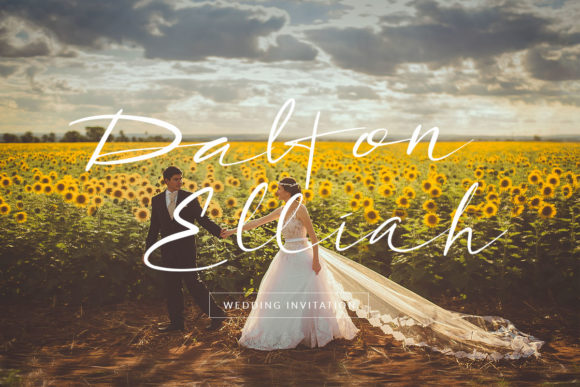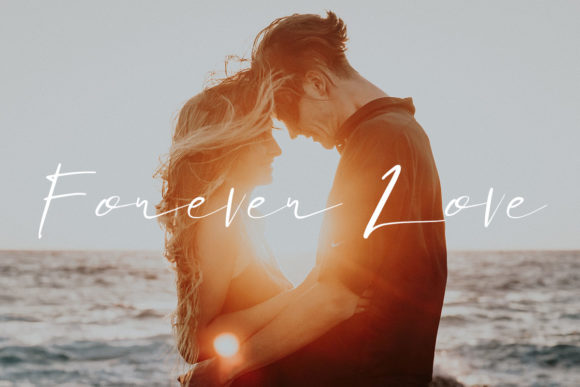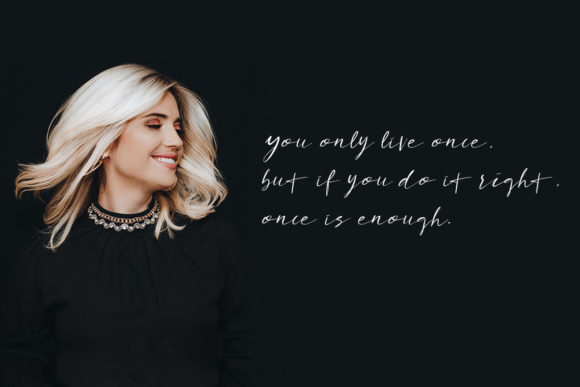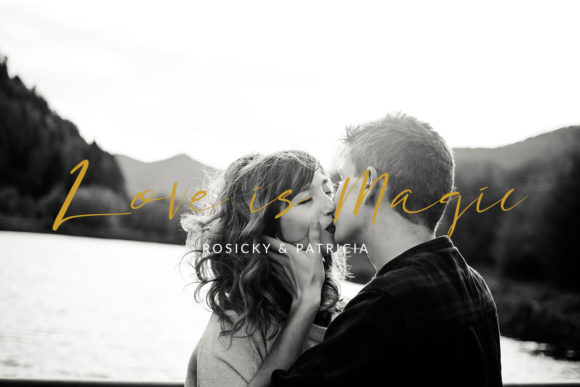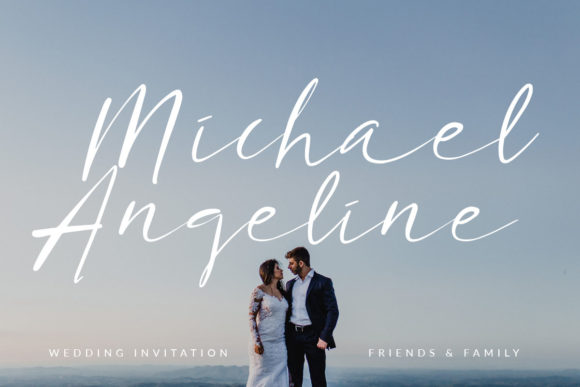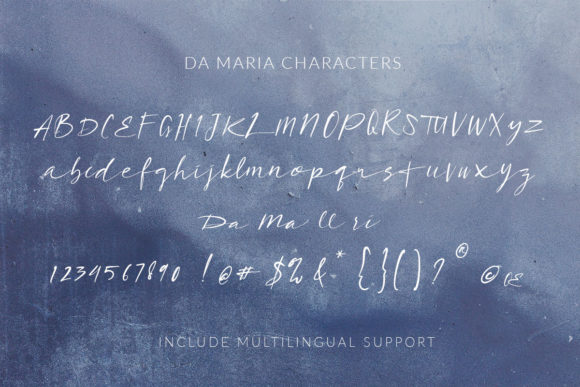
Discover the Charm of Da Maria Font: A Playfully Romantic Script Font
Are you looking for a font that adds a personal touch to your design projects? Look no further than Da Maria Font, a sweet and playfully romantic script font that’s perfect for crafters and designers alike. In this article, we’ll dive into the unique style of Da Maria and explore how you can get inspired by its charm.
What is Da Maria Font?
Da Maria Font is a beautifully crafted script font that’s designed to bring a touch of romance and whimsy to your designs. With its flowing lines and delicate curves, Da Maria is perfect for creating eye-catching headlines, titles, and quotes that capture the essence of your message. Whether you’re working on a branding project, a wedding invitation, or a social media graphic, Da Maria Font is sure to make your design stand out.
Unique Features of Da Maria Font
So, what sets Da Maria Font apart from other script fonts? Here are a few unique features that make it a standout:
- Playful and Romantic: Da Maria Font has a playful and romantic feel that’s perfect for designers who want to add a touch of whimsy to their work.
- Sweet and Delicate: The font’s delicate curves and flowing lines make it perfect for creating sweet and feminine designs.
- Highly Readable: Despite its ornate style, Da Maria Font is highly readable, making it perfect for use in body text and captions.
- Versatile: Da Maria Font can be used for a wide range of design projects, from branding and advertising to wedding invitations and social media graphics.
Design Inspiration with Da Maria Font
Da Maria Font is a versatile font that can be used in a variety of design contexts. Here are a few ideas to get you started:
- Wedding Invitations: Da Maria Font is perfect for creating beautiful and romantic wedding invitations that set the tone for the big day.
- Branding and Packaging: Use Da Maria Font to add a touch of personality to your brand’s packaging and marketing materials.
- Social Media Graphics: Da Maria Font is perfect for creating eye-catching social media graphics that stand out in a crowded feed.
- Stationery and Greeting Cards: Use Da Maria Font to create beautiful and personalized stationery and greeting cards.
Tips for Using Da Maria Font
Here are a few tips for getting the most out of Da Maria Font:
- Use it sparingly: Da Maria Font is a statement font, so use it sparingly to add emphasis and personality to your design.
- Pair it with a sans-serif font: Pair Da Maria Font with a sans-serif font to create a beautiful and contrasting design.
- Experiment with colors: Da Maria Font looks beautiful in a range of colors, from soft pastels to rich jewel tones.
Da Maria Font is a beautiful and versatile script font that’s perfect for designers and crafters who want to add a touch of romance and whimsy to their work. With its unique style and highly readable design, Da Maria Font is sure to inspire your next design project. So why not give it a try and see what beautiful designs you can create?